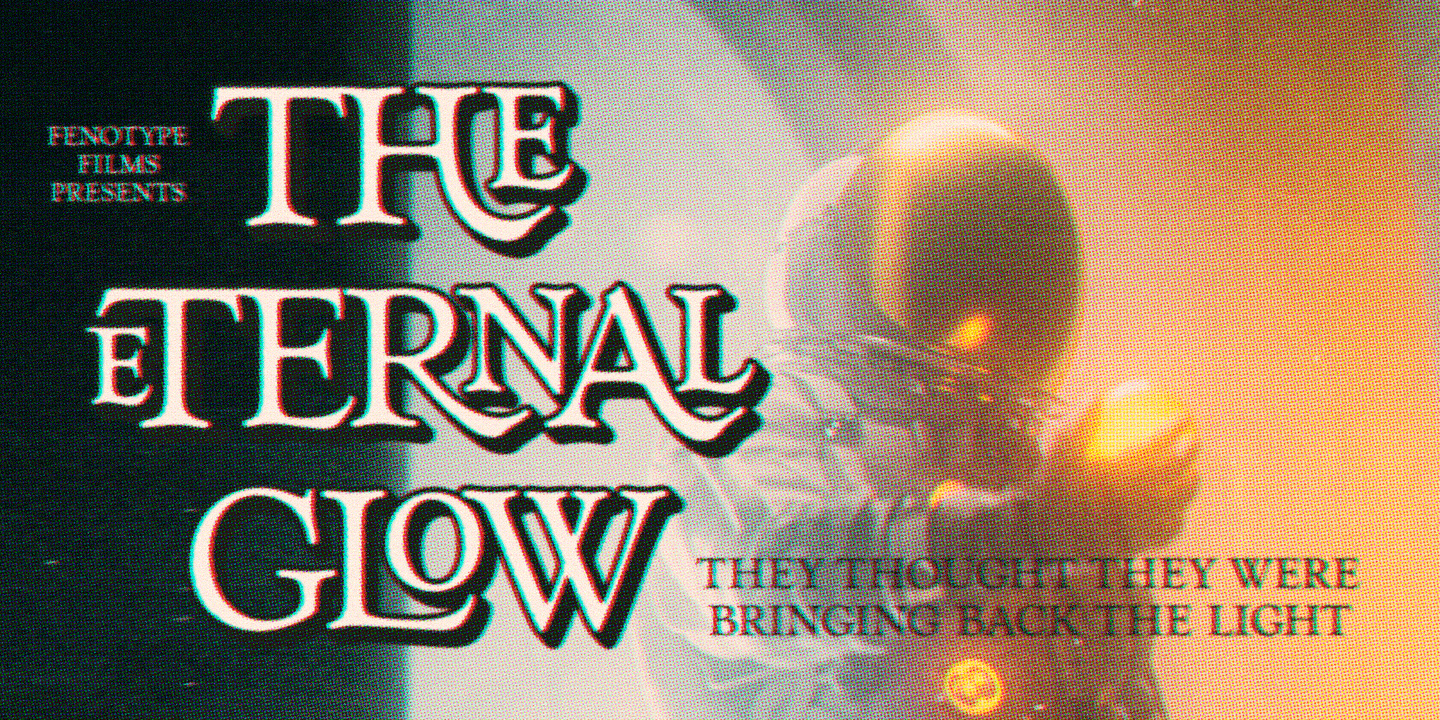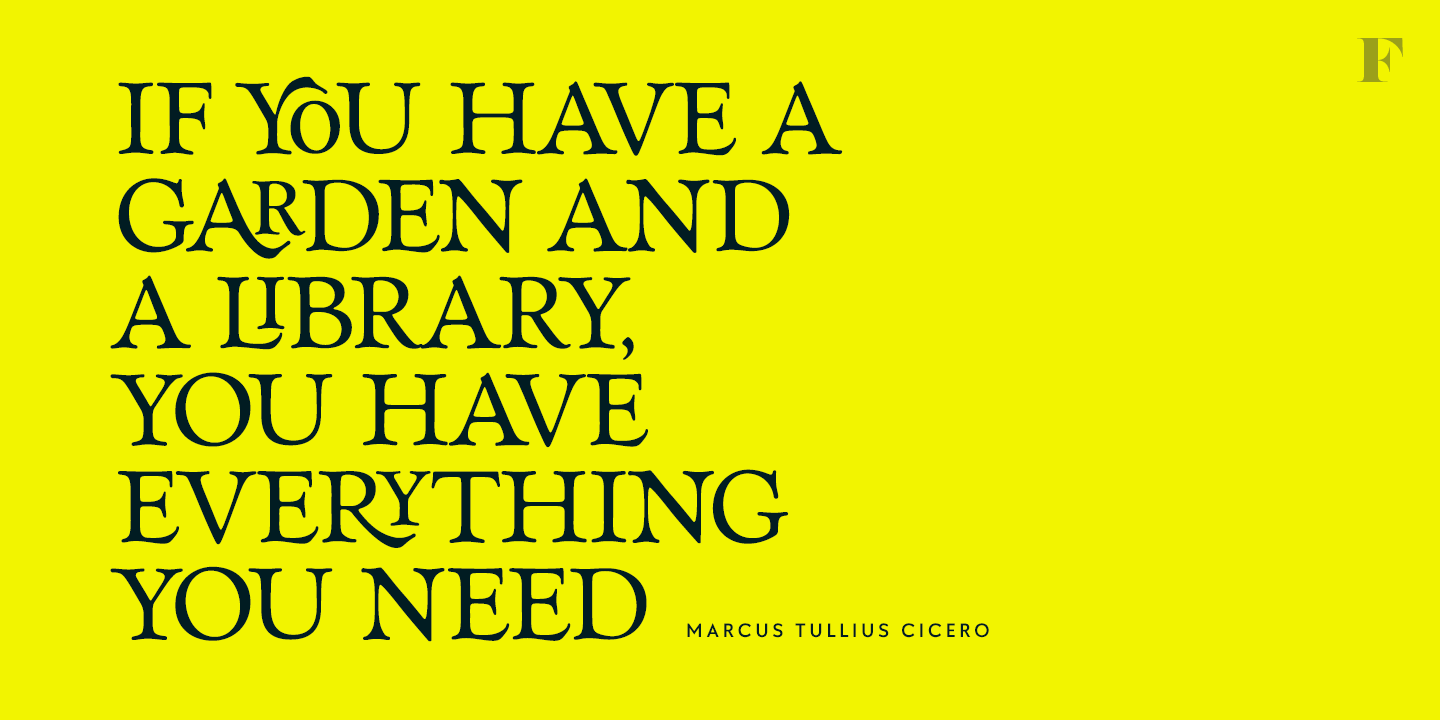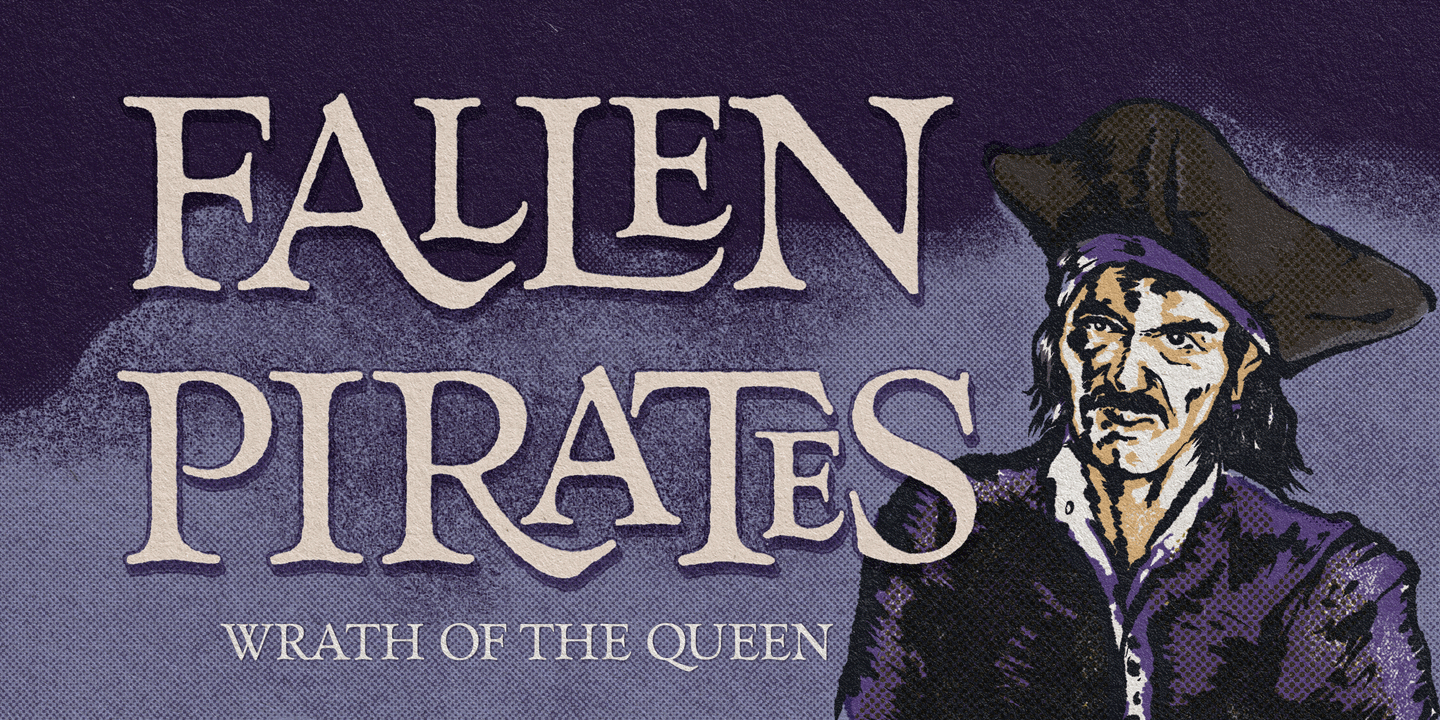
About Goldie Old Style
Goldie, true to its name, is a captivating serif typeface designed specifically for eye-catching headlines. Its rounded serifs and subtle charm make it a perfect fit for movie titles, novel covers, posters, and other design projects that require a touch…